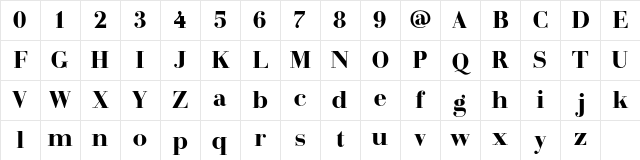
Arshila ExtBd Regular
Foundry: Bykineks
Designer: Dede Kurniawan
Design Context for Arshila ExtBd
Arshila ExtBd is a composed and adaptable typeface that performs quietly and consistently across a wide range of design contexts.
Pro Tip: Use Arshila ExtBd in both headline and body roles to test its range before committing to a single application.